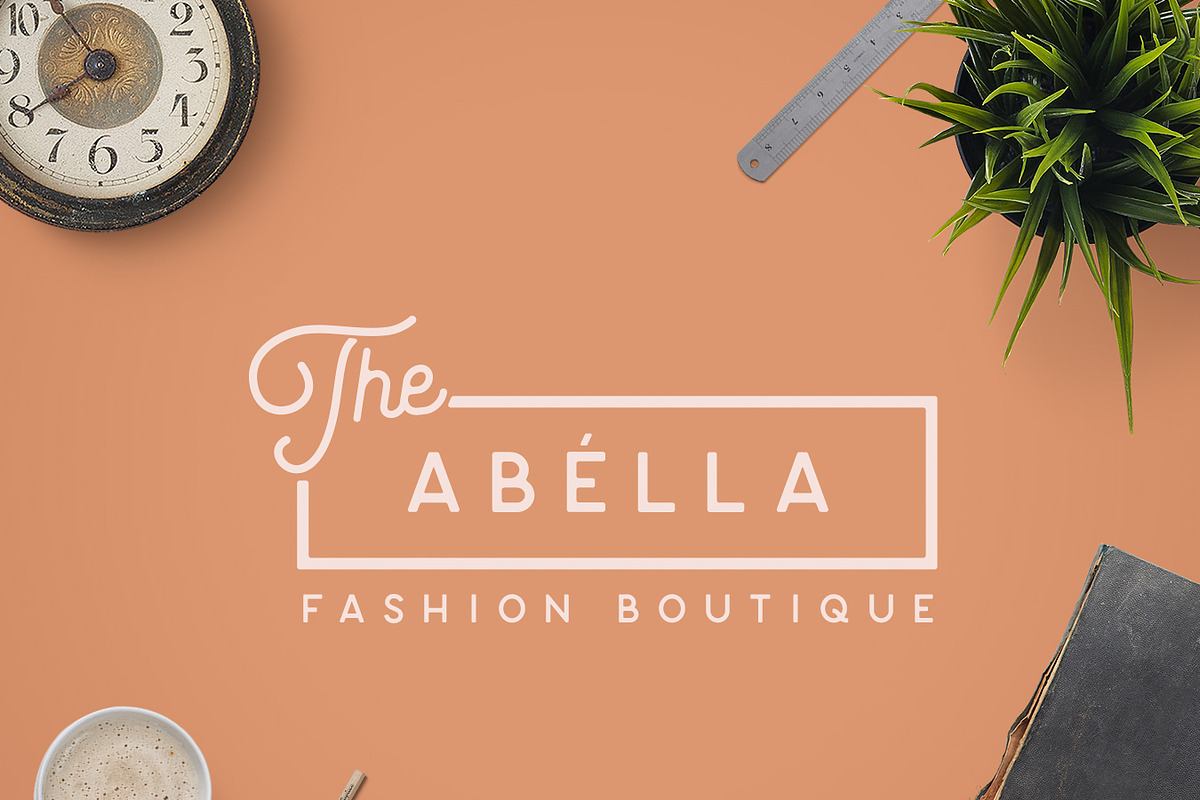
Enriq Round Elegant Sans Free Download
Enriq Round Elegant Sans Font Free Download
You must purchase this font for commercial use. However, you can download Enriq Round Elegant Sans Font Free Download for testing purposes. Enriq is a refined, modern sans-serif font featuring smooth, rounded edges and an elegant, minimalist design. Ideal for creating sleek logos, branding, website headers, packaging, and corporate materials, this font offers versatility and sophistication while maintaining readability and clarity.
With its clean, geometric shapes and contemporary feel, Enriq Round Elegant Sans Font brings a fresh, upscale touch to your projects. The rounded letterforms create a friendly and approachable aesthetic, making it perfect for both high-end designs and casual, modern layouts. Whether you're crafting a luxury brand identity or designing a clean website, this font ensures your text looks polished and professional.